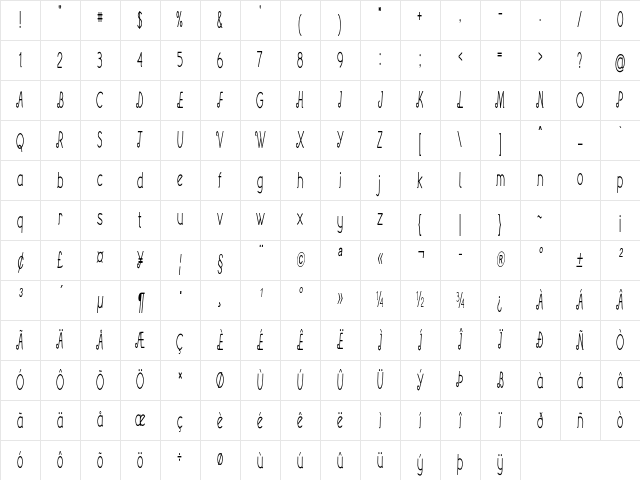
Dunkel Extra-condensed Regular
Style: Extra-condensed Regular
Dunkel Family
Dunkel Extra-condensed Regular
Complete Dunkel Extra-condensed Regular glyph index. Displaying only characters natively supported by Dunkel Extra-condensed Regular font.
Design Context for Dunkel
Dunkel is a composed and adaptable typeface that performs quietly and consistently across a wide range of design contexts. Its narrow stance lets it pack a punch even in space-constrained designs.